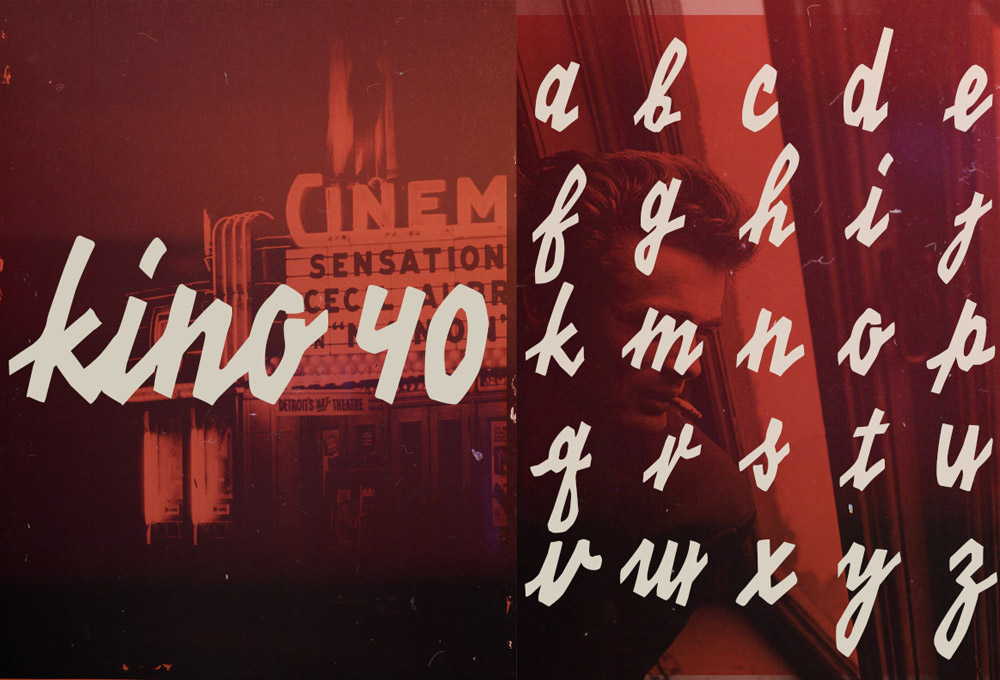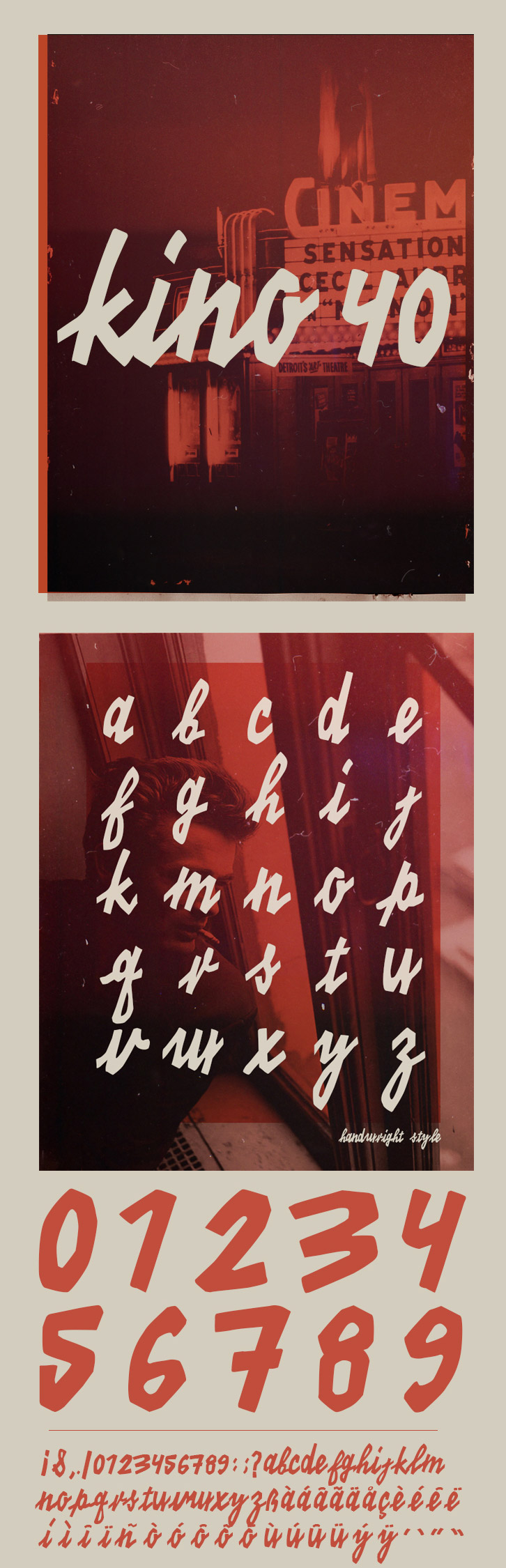
Friends, KINO 40 is a free font inspired and created in the old cinema handwriting style. This Typeface is created by les83machines . and is free for personal use and commercial use.